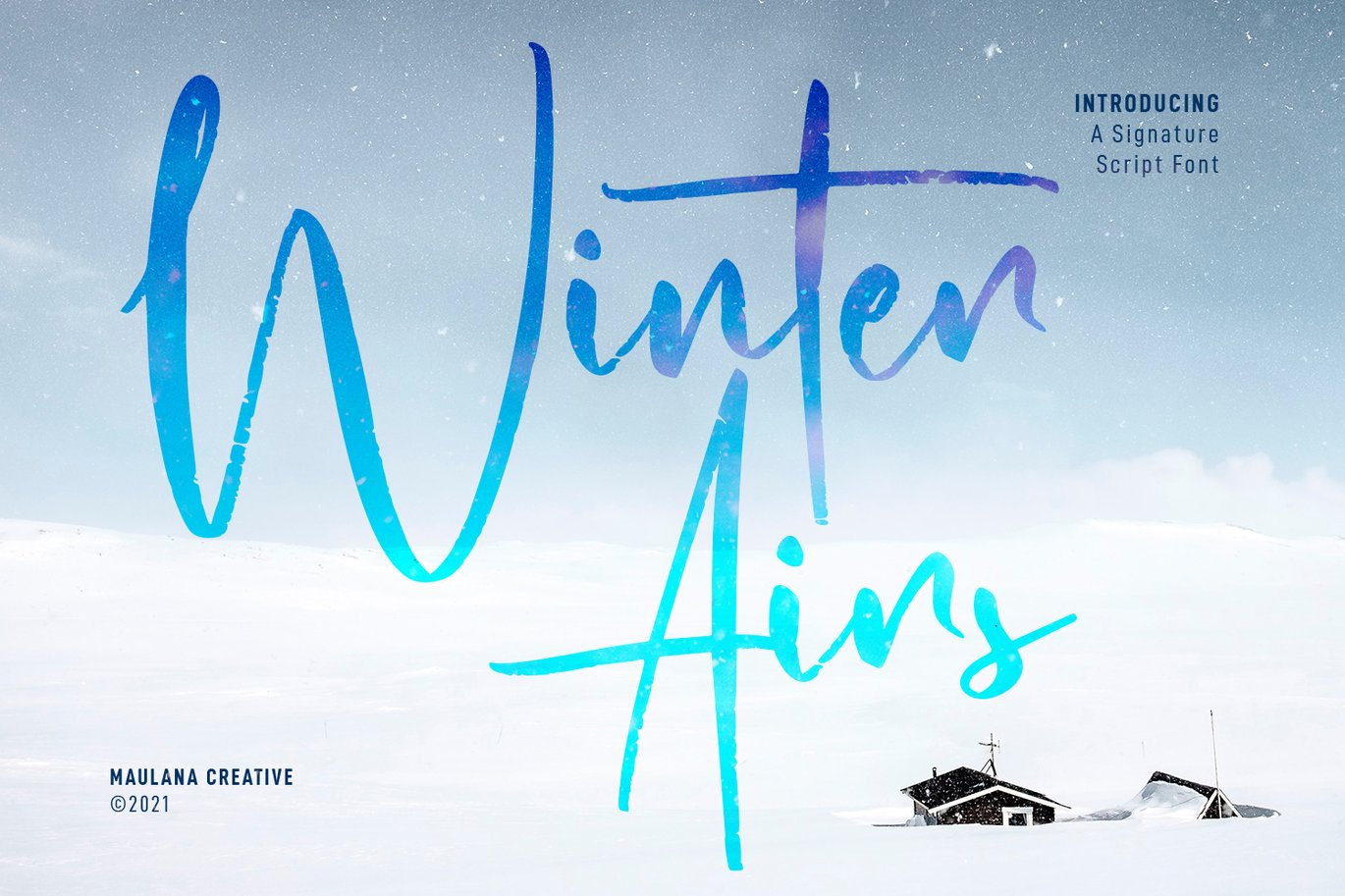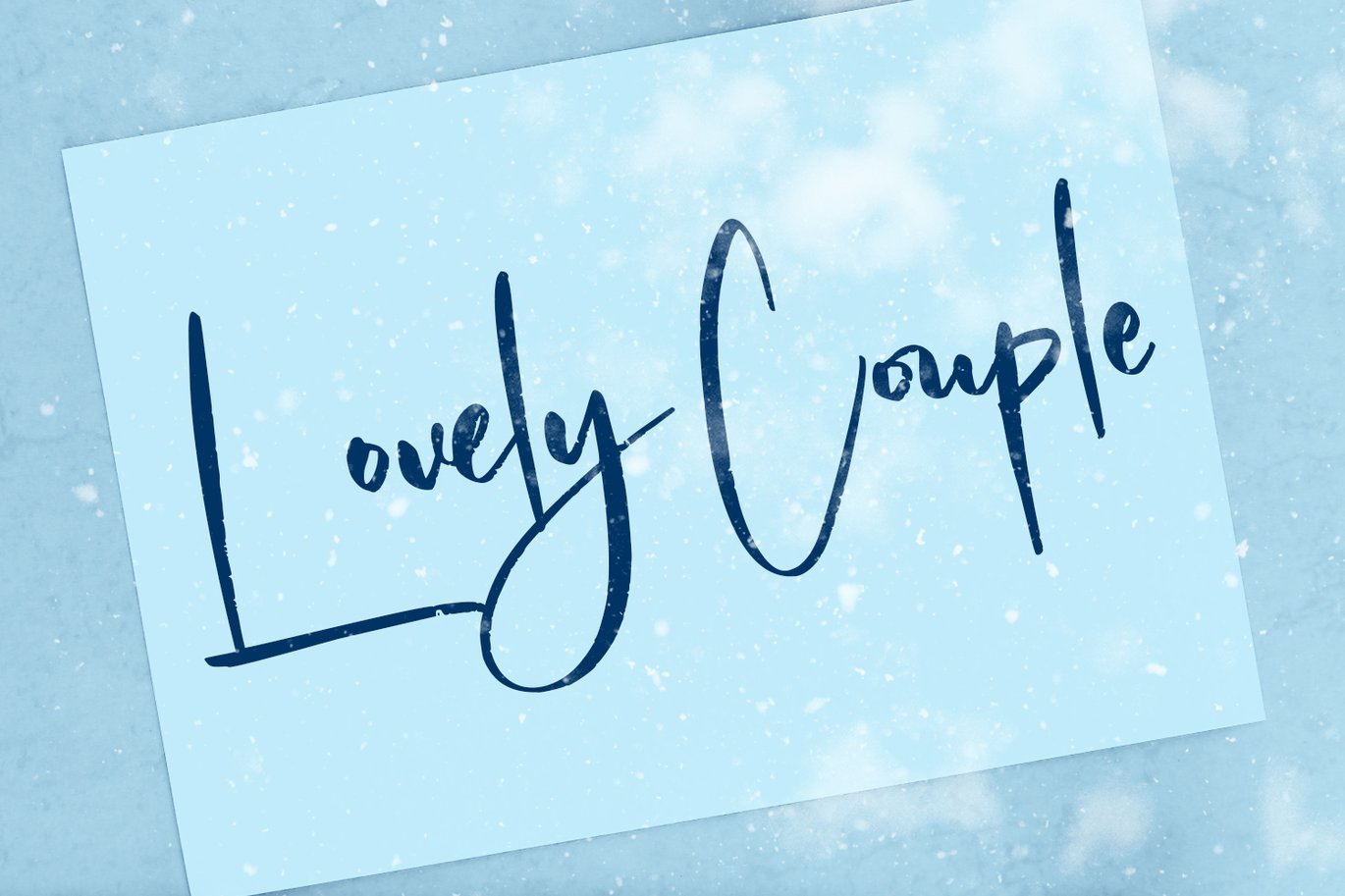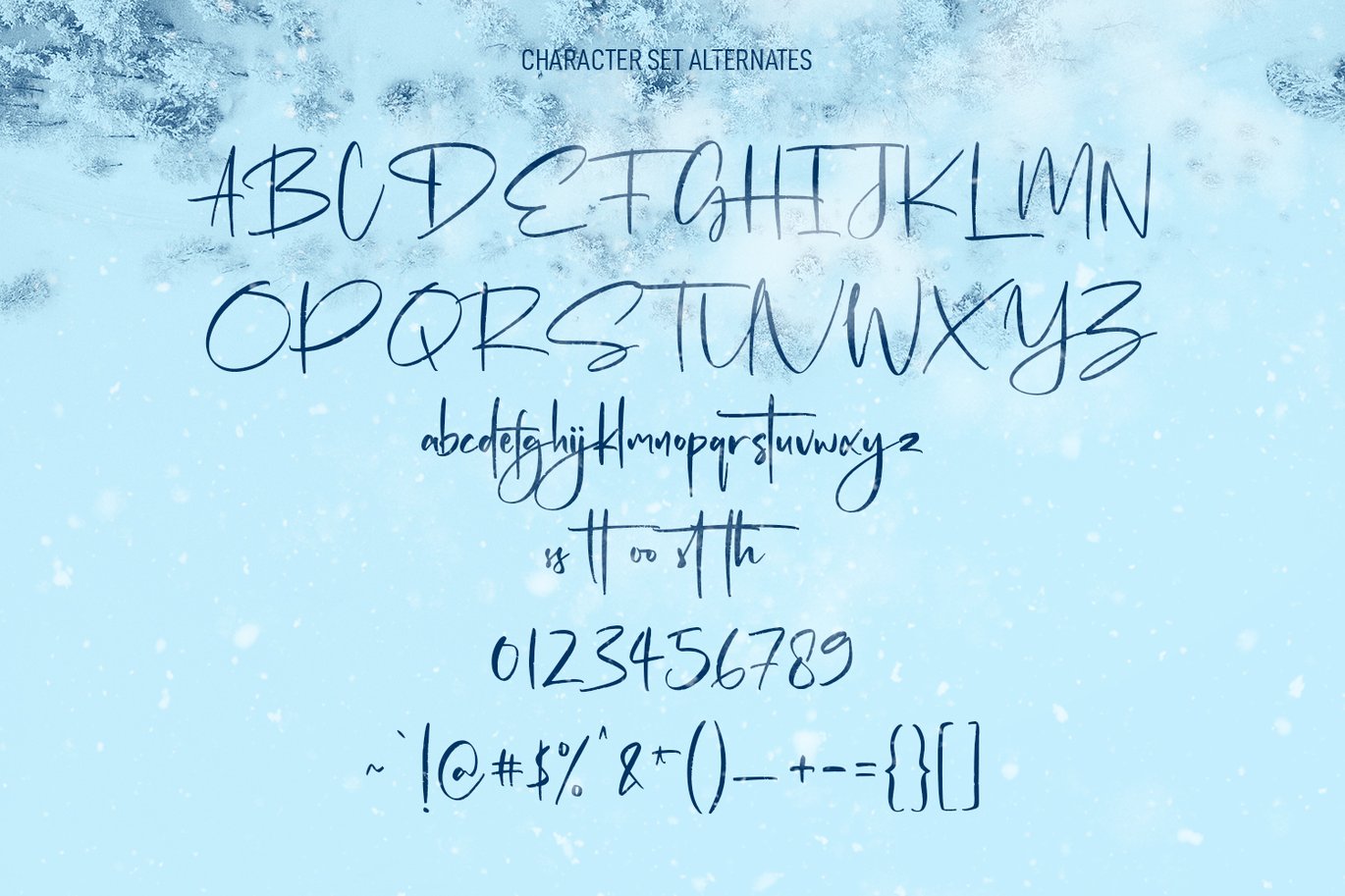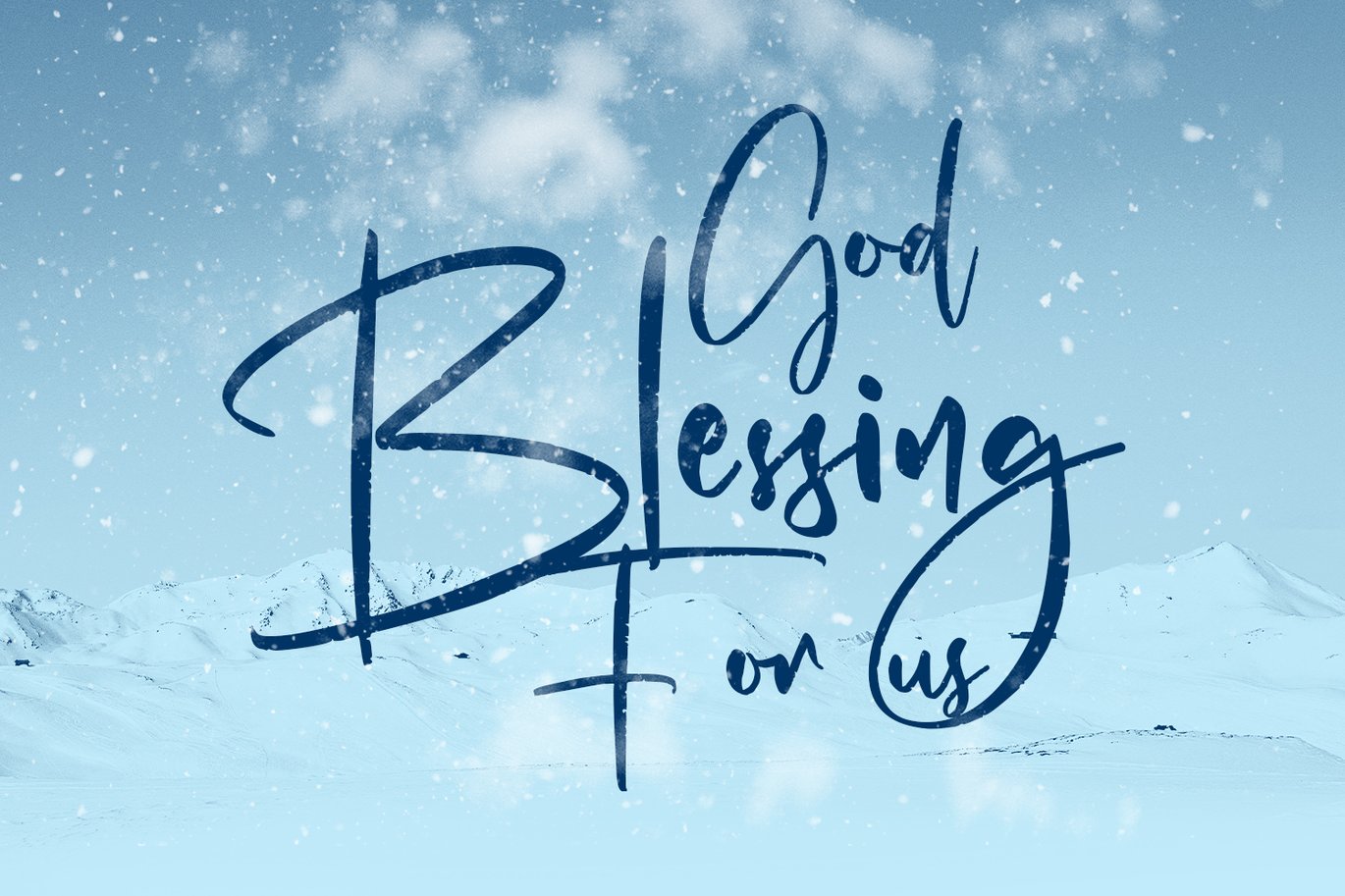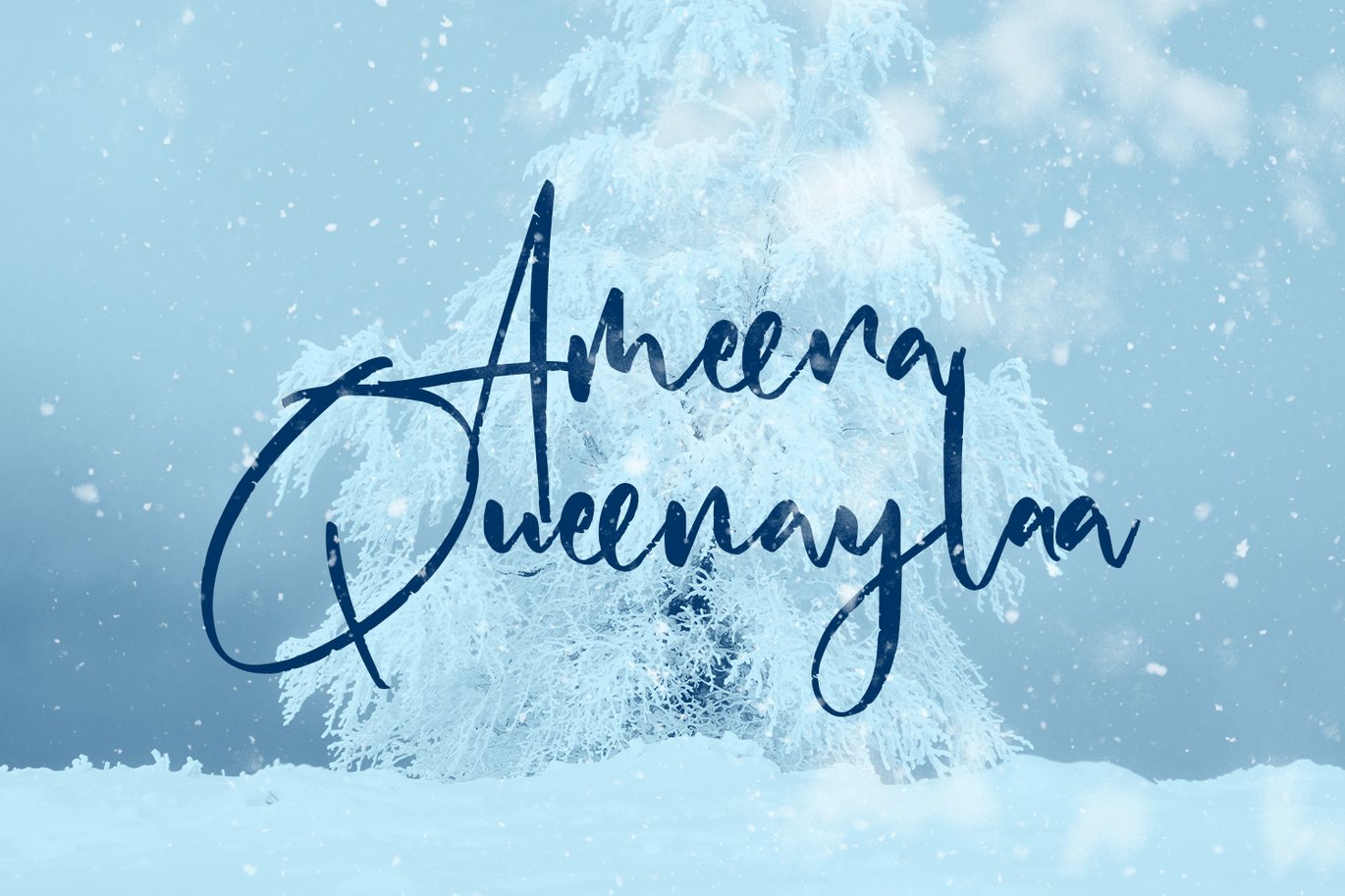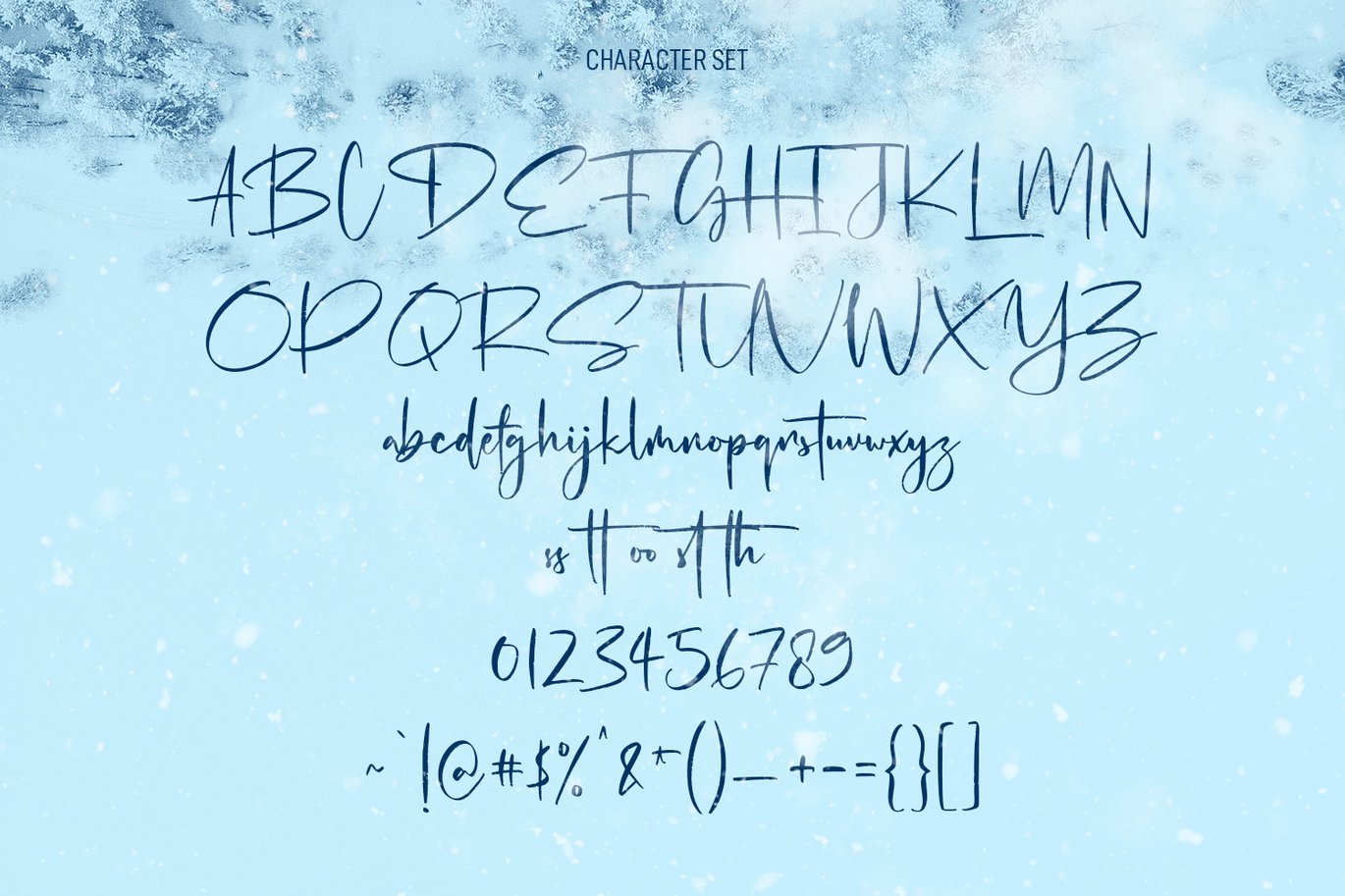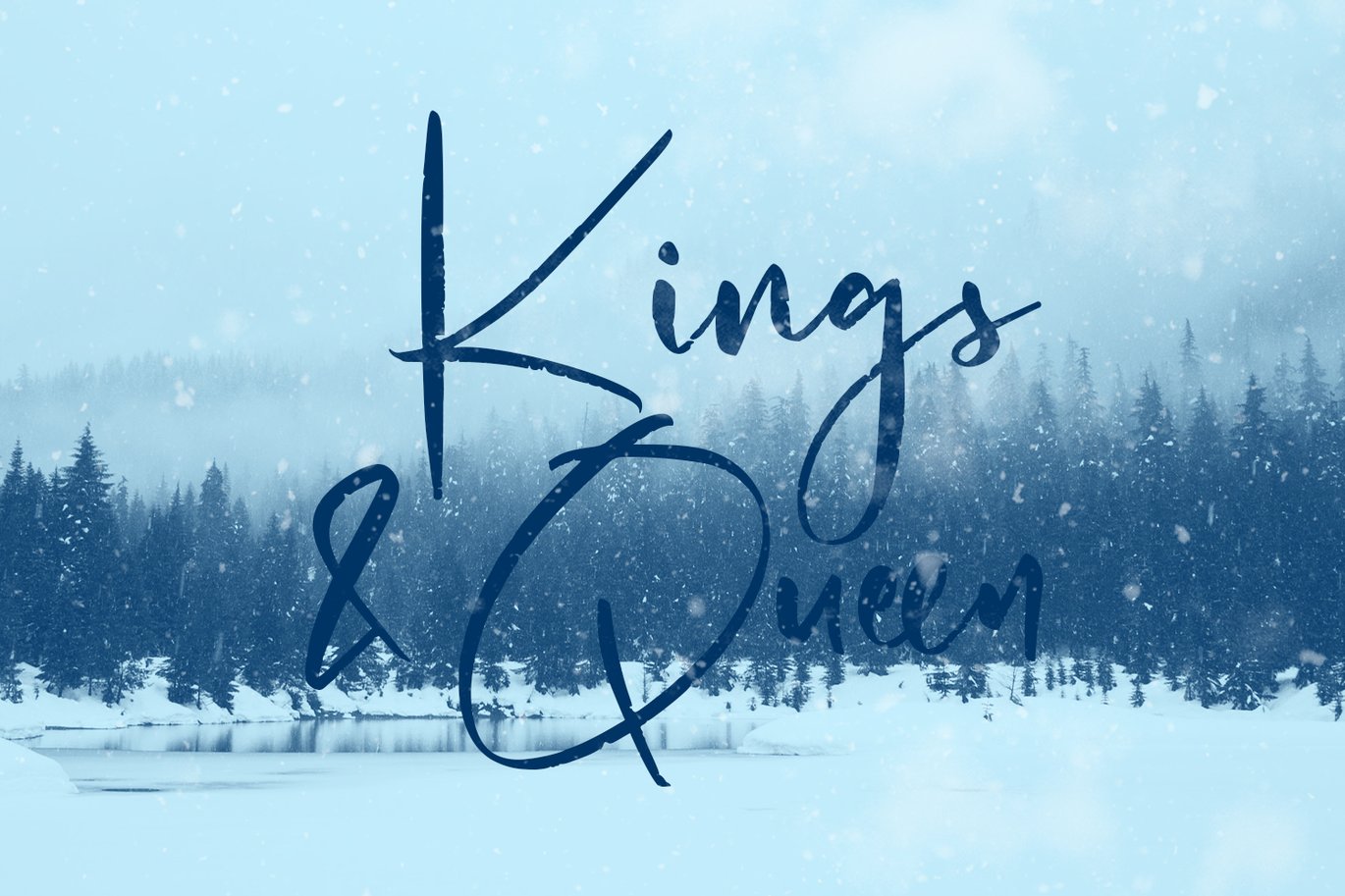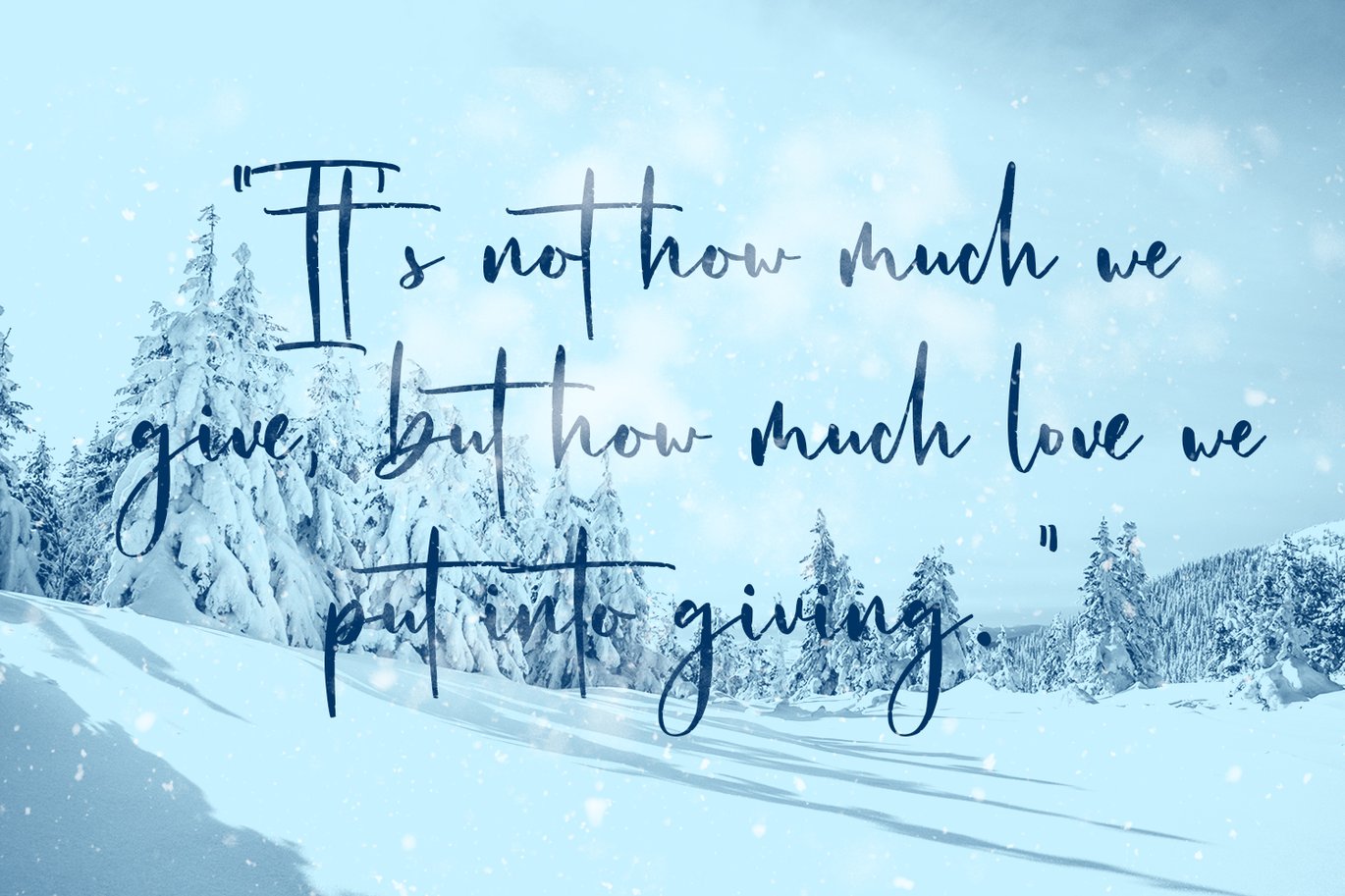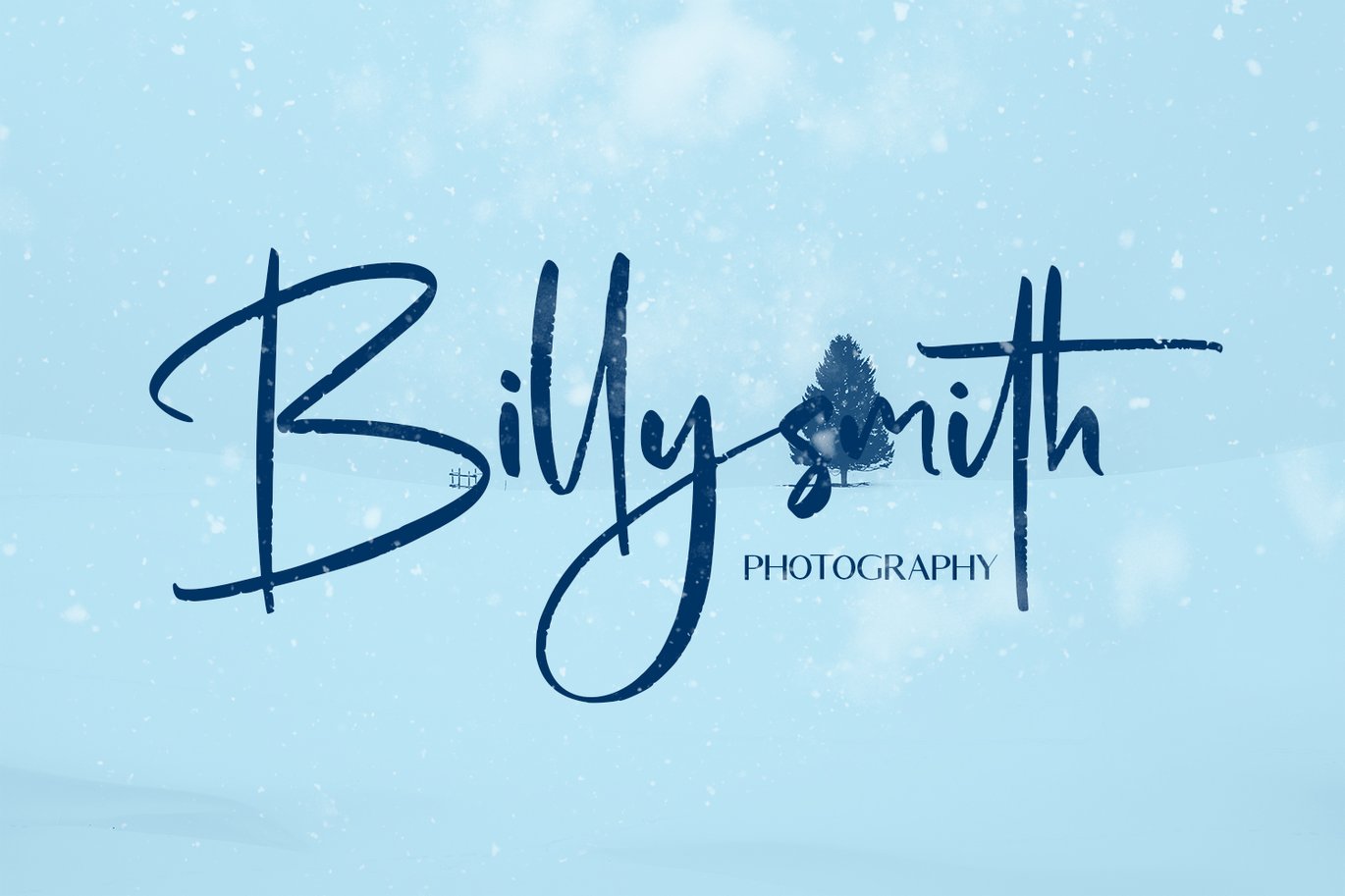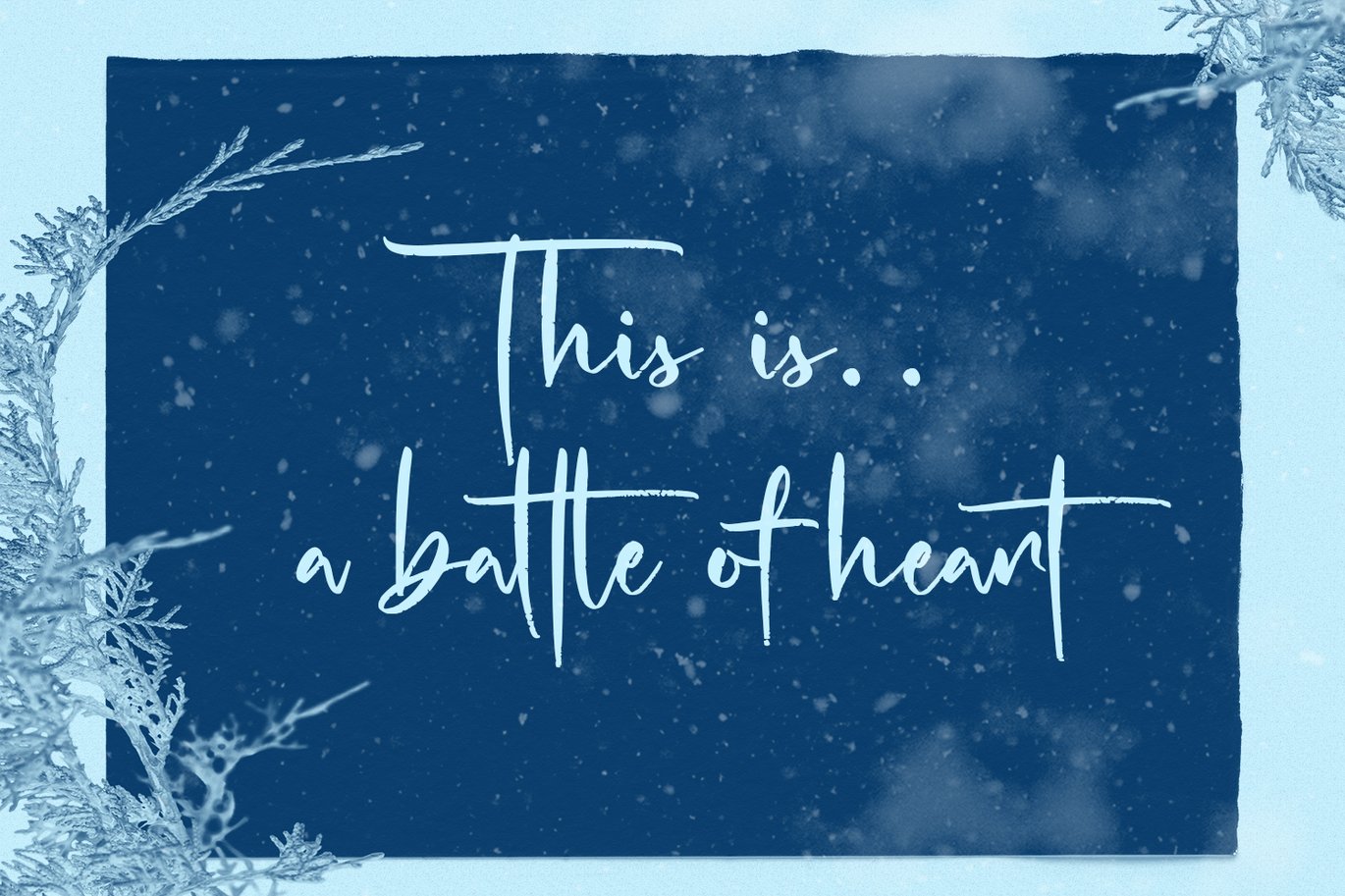
Winter Airs Script Font
Winter Airs is a natural feel script font. With rough stroke, fun character with a bit of ligatures and has a two files lowercase alternates. To give you an extra creative work. Winter Airs font support multilingual more than 100+ language. This font is good for logo design, Social media, Movie Titles, Books Titles, a short text even a long text letter and good for your secondary text font with sans or serif. Make a stunning work with Winter Airs font.